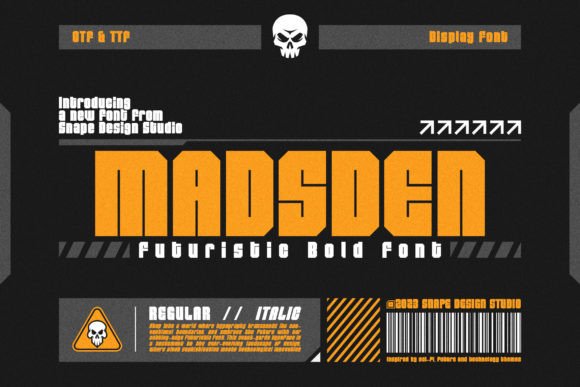
Prepare yourself to be transported to the future of font design with Madsden, a groundbreaking display font family that seamlessly merges innovation and aesthetics. Created by the visionary minds at snapedsgn, this collection goes beyond conventional fonts, redefining the very essence of modern typography.
Madsden is a symphony of elegance and functionality, perfectly suited for a myriad of projects seeking a futuristic touch. Its sleek, dynamic characters dance across the screen, captivating audiences with their technological prowess and artistic flair. Whether you're crafting sci-fi masterpieces, building tech empires, or unleashing your creativity in any realm, Madsden is your ultimate companion.
Immerse yourself in the endless possibilities of Madsden. Its user-friendly customization options empower you to tailor the fonts precisely to your vision. Transform your designs into expressions of modernity, leaving a lasting impression that resonates with your audience.
Join the ranks of those who dare to embrace the future of typography. Unleash the power of Madsden and witness the transformation of your creative endeavors. Don't settle for ordinary fonts; embrace the cutting-edge brilliance of Madsden today.